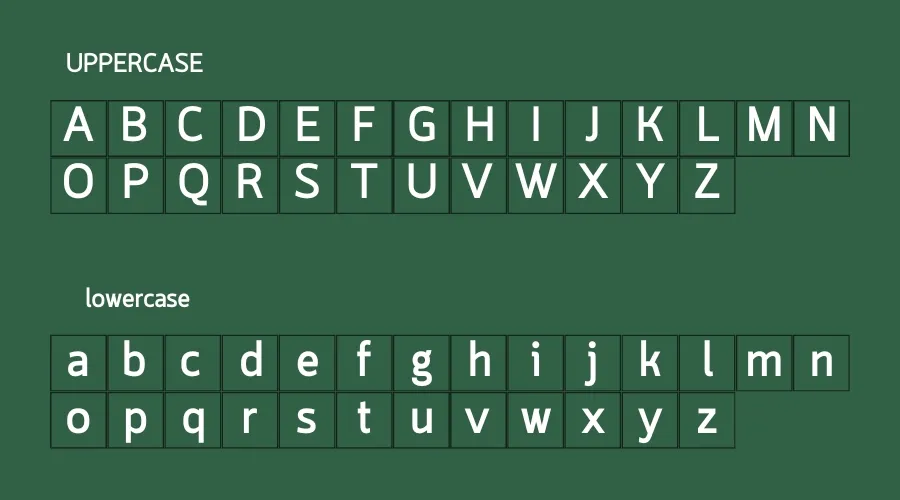
Quark Font
About Quark Font
Quark Font is created by Typomancer and it is the sans serif style this font comprises interesting unique glyphs which make it idealized for demonstration purposes.
This font is a great choice for those who are searching for a classic textual style with a nice appearance. It is extremely simple, easy, and clear, in upper and lower cases.
Web pages can also try this beautiful texture, which is compatible with many languages. You must buy the full font family if you want to create unique designs. This typeface is very similar to the dm Sans font.
This typeface has a thin string that gives a sleek appearance to the text style. The typeface is best for body content, captions, and subtitles. It can be the best choice for your next project.